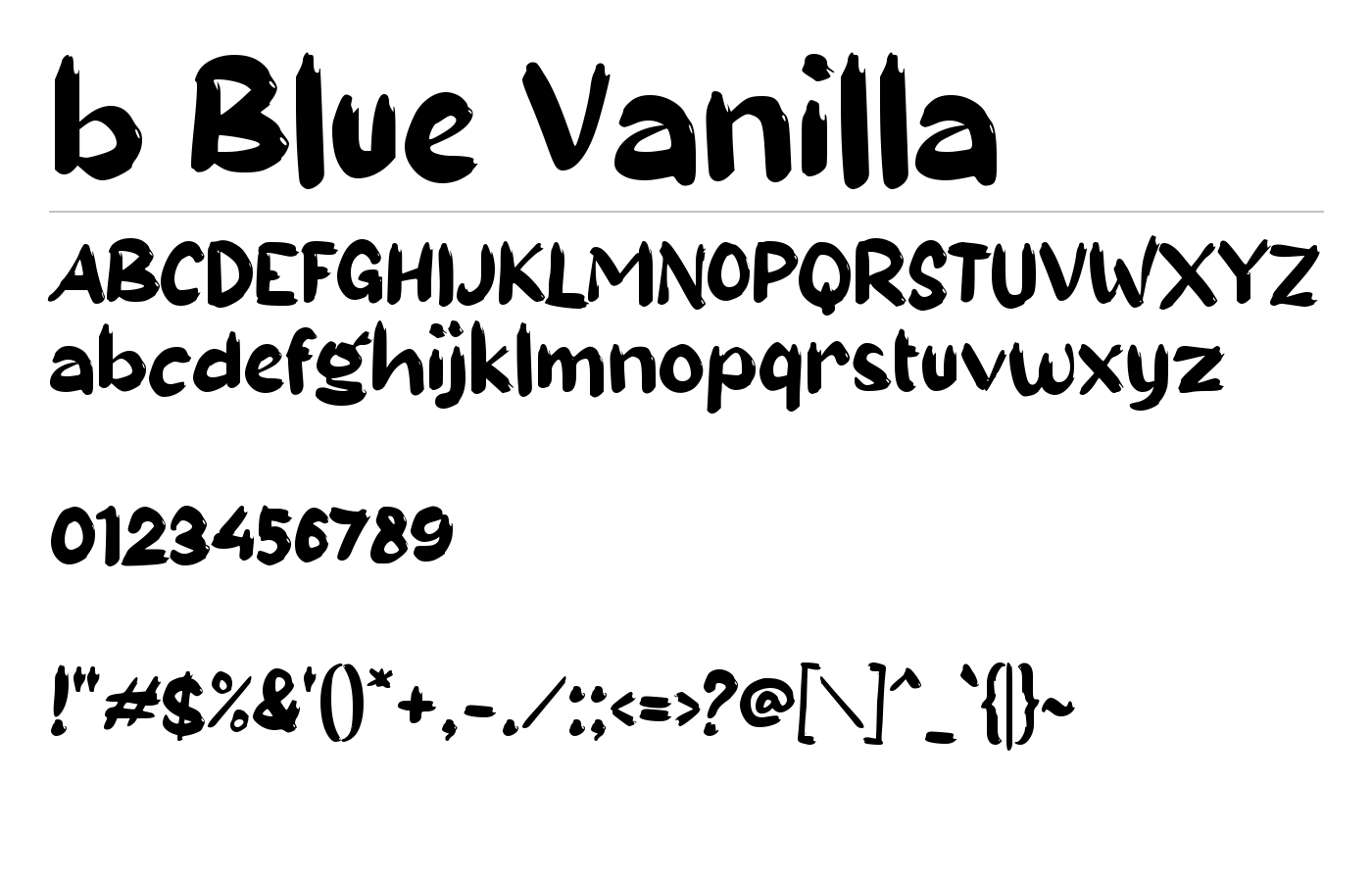
Blue Vanilla is a playful and bold handwritten font with a casual, brush-stroke style that adds a lively and friendly personality to any design. Its slightly irregular shapes and thick, consistent strokes make it perfect for attention-grabbing headlines, logos, or creative projects that want to convey warmth and approachability. This font works well in informal settings like posters, branding for children’s products, or any context needing a fun and energetic touch.
b Blue Vanilla Font